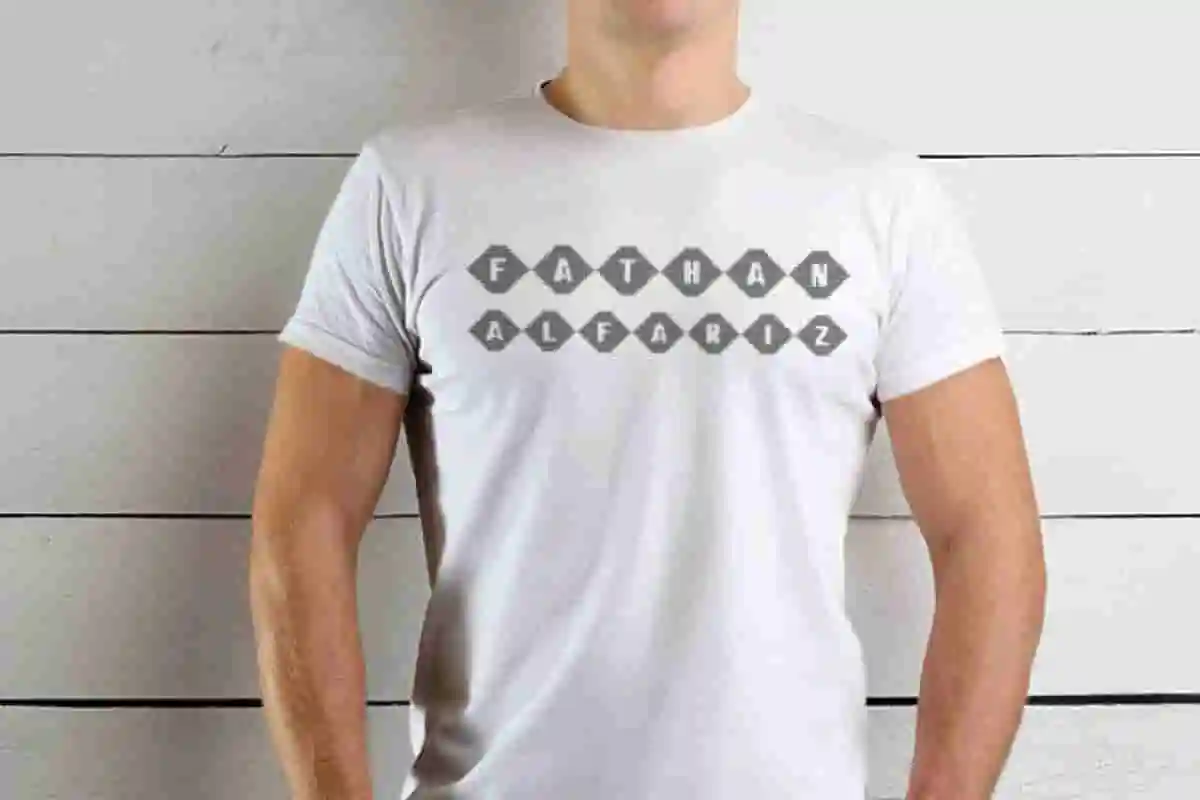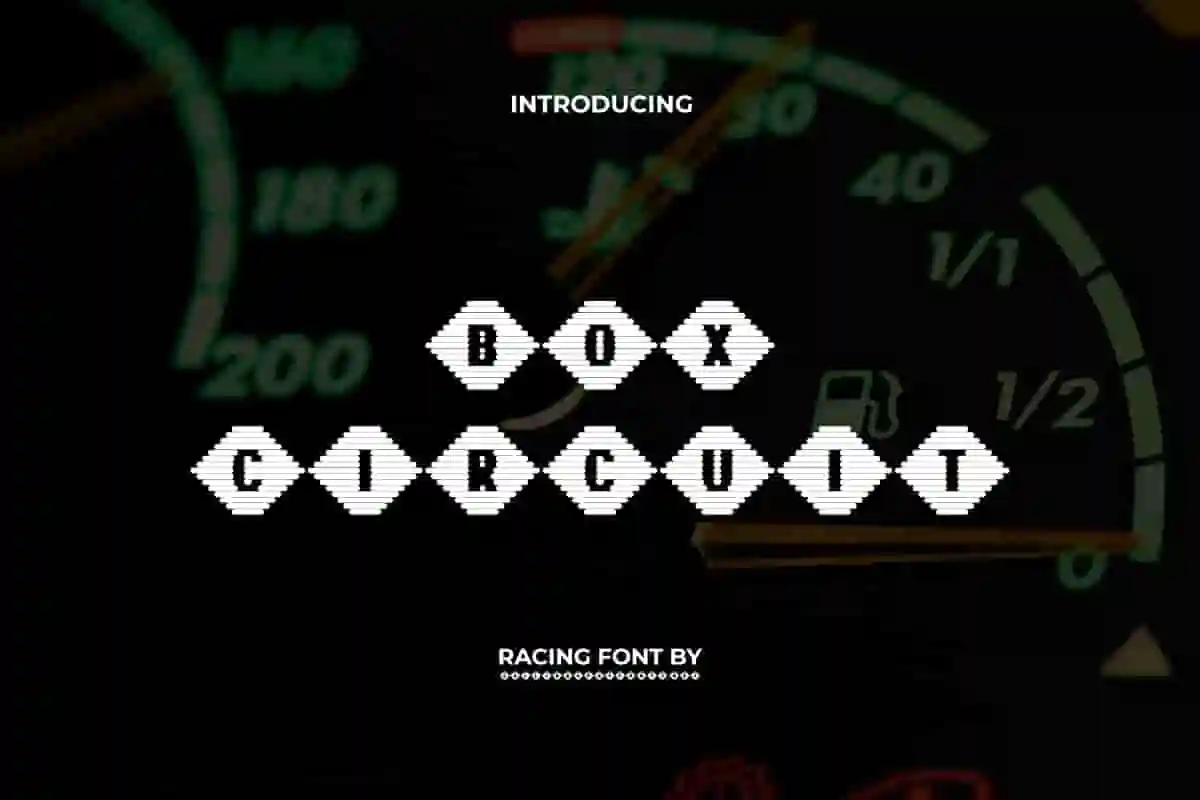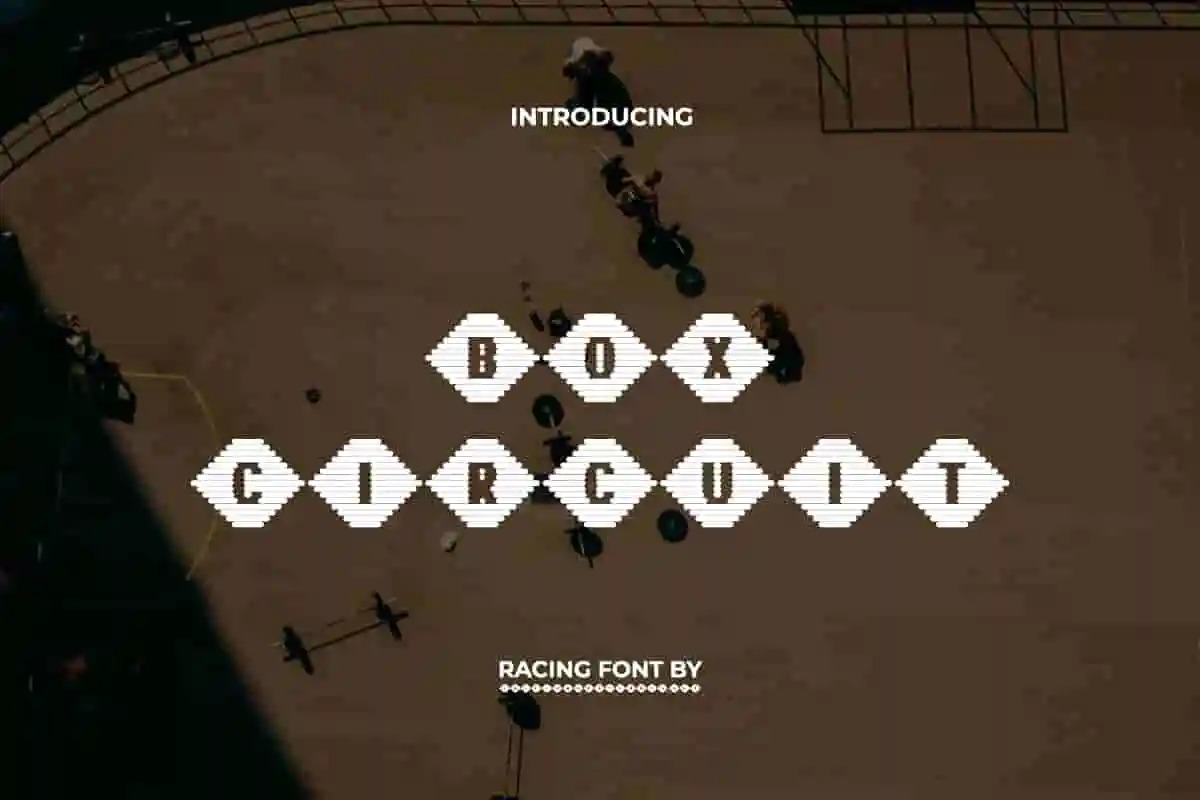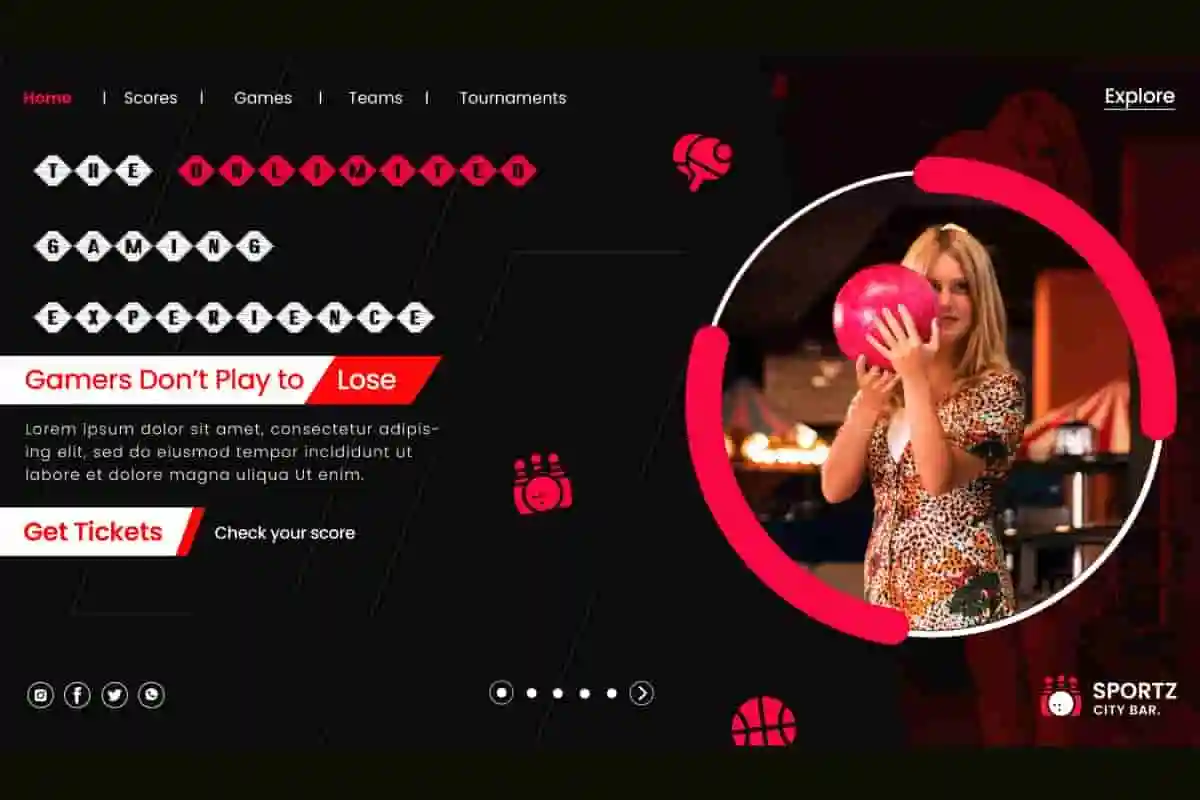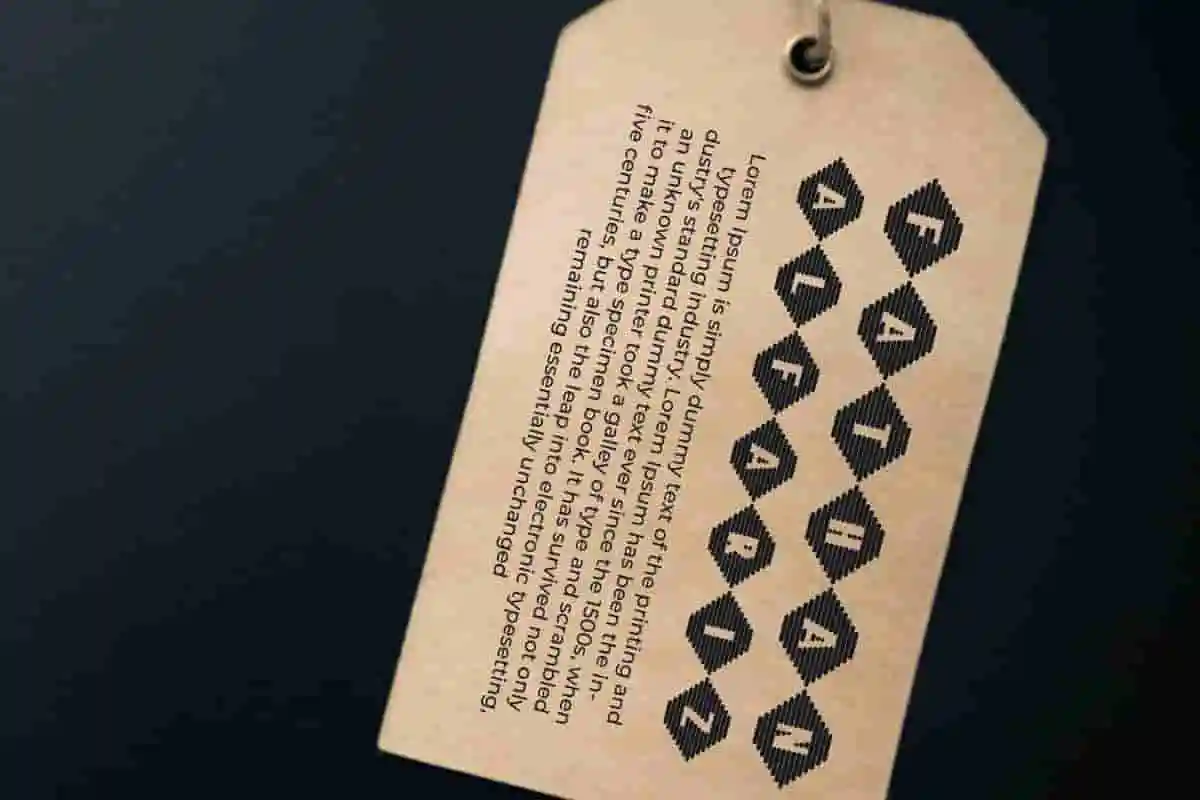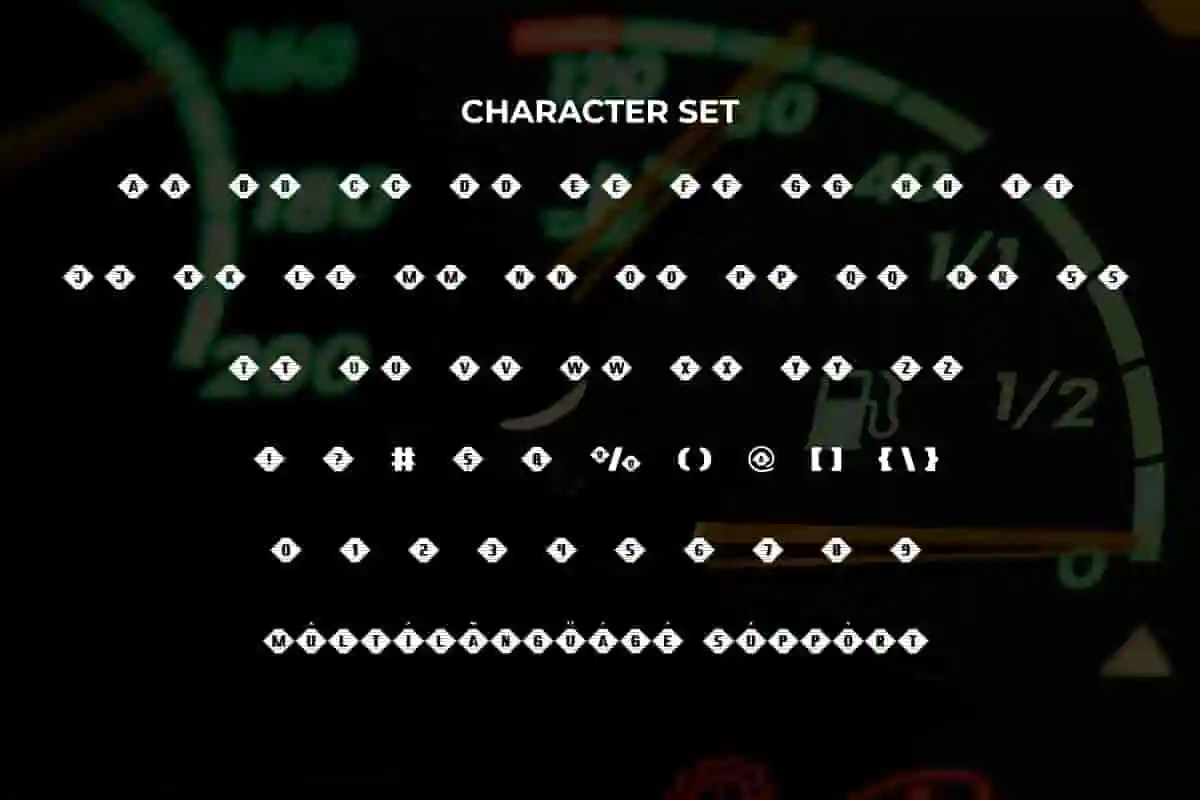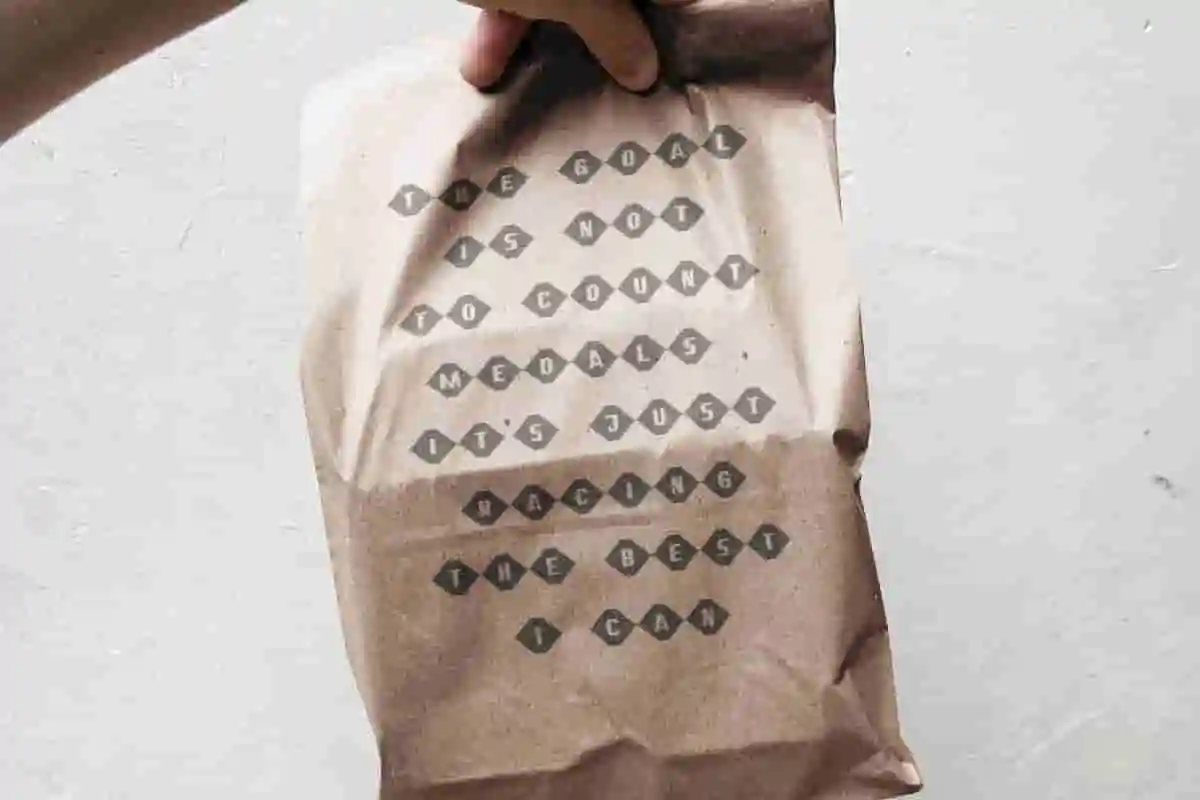
Box Circuit Decorative Font
Box Circuit Font is a hexagonal striped font that is quite versatile for a variety of purposes. It will be good for label tag, outdoor sports, packaging design, racing, stamp decal, t-shirt, web, etc.
Box Circuit Font is a playful display font in capital letters that comes with a likeable. This modern font has been decorated with a fun touch to produce a unique and different font appearance. Perfect for accessories and merchandise, camping activities, clothing brand, creative industries, fashion, film, games, graphic design, movie, outdoor sports, printing, publishing, sport racing, sportwear, and many more.
Step into the future of design with Box Circuit Decorative Font, a striking typeface inspired by digital circuits, modern technology, and futuristic aesthetics. Its sharp lines and geometric edges make it more than just a font—it’s a statement piece that transforms every word into a bold visual experience.
Perfect for logos, posters, gaming graphics, music covers, event flyers, merchandise, and digital artwork, Box Circuit Decorative Font brings a modern, edgy vibe that instantly captures attention. Whether you’re designing for a tech startup, a futuristic event, or a high-energy creative campaign, this decorative font will set your project apart.
Every letter is carefully crafted to balance uniqueness and readability, ensuring that your message remains clear while standing out with unmistakable style. The futuristic circuit-inspired look gives your designs an innovative edge, making it ideal for industries where bold creativity is a must.
From print to digital, Box Circuit Decorative Font adapts seamlessly. Use it on large-scale posters to create impact, on branding to showcase modern identity, or on merchandise to give products a distinctive personality. Its versatility allows you to experiment with different design directions while keeping a consistent futuristic aesthetic.
Box Circuit Decorative Font is an oddly satisfying racing font that innovates a hexagonal typeface with a kind of lines running along the circuit with the letter characters in negative space. It makes the font look amazing so it’s perfect for badge, blogs, brand logo, brochure, flyer, headers, heading, headline, label tag, mockup, packaging, printed materials, poster, quotes, stamp decal, stationery, t-shirt, template, website, and many more.
Box Circuit Decorative Font comes with a complete set of ALL CAPS for Uppercase and lowercase, Number, a large range of Punctuation and Symbol. It is supported with multilingual characters and ready to use both on Windows machine or Mac with simple installations. It’s tested to work well in the Adobe Apps (Illustrator, Adobe InDesign, Adobe Photoshop) CorelDraw, and others. PUA Encode Characters means you can access all the characters easily – Fully accessible without additional design software.